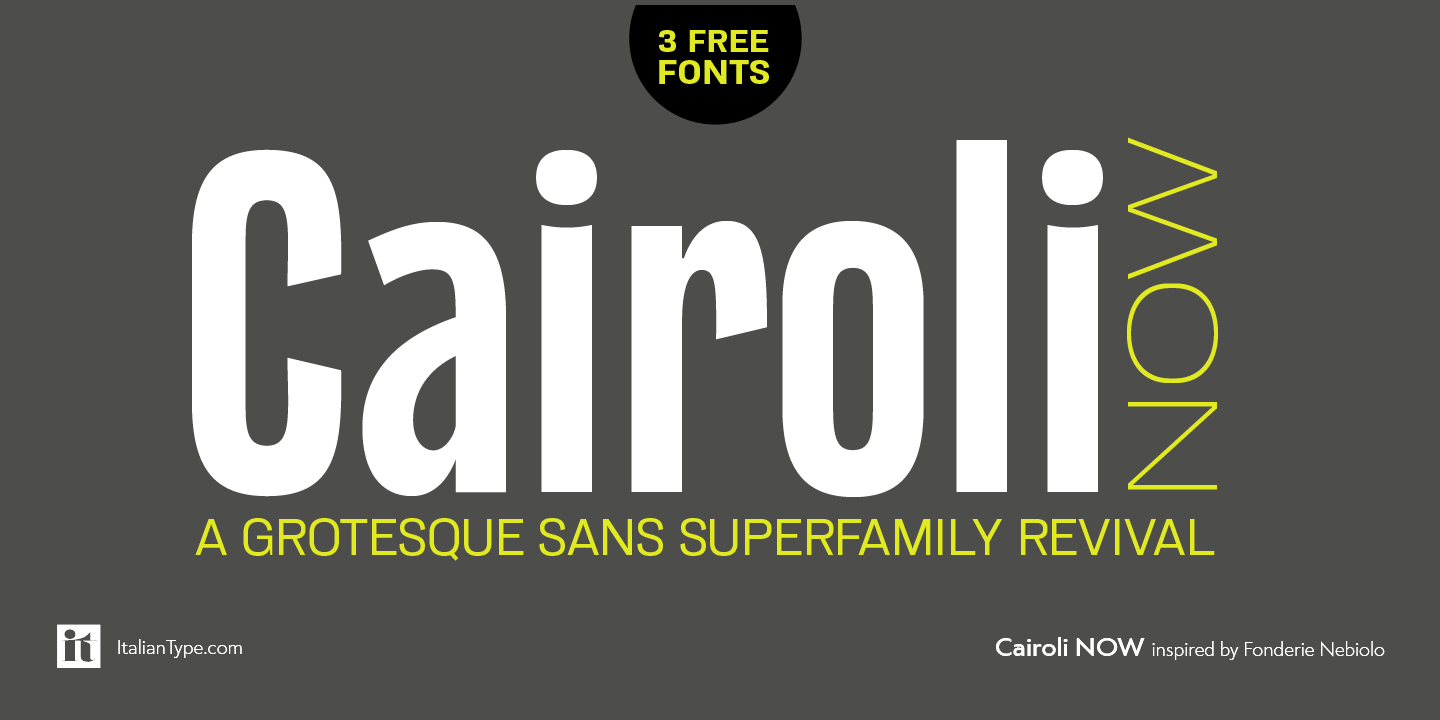
Cairoli Now Font Free Download – A Contemporary Geometric Sans for Modern Branding
Looking for a font that blends Swiss precision with modern versatility? Cairoli Now Font Free Download offers a clean, geometric sans-serif design perfect for corporate identities, web interfaces, app design, and minimalist branding projects. Its balanced proportions and functional aesthetics make it ideal for both display and text applications.
Why Designers Choose Cairoli Now Font
Cairoli Now Font Free Download delivers professional-grade typography with:
Precision-crafted geometric letterforms
Multiple weights from Thin to Black for visual hierarchy
Excellent legibility in digital and print environments
Extended language support for global projects
Cairoli Now Font Free Download – Swiss-Inspired Functionality
Elevate your contemporary projects with this versatile typeface for:
Tech company branding & startup identities
Mobile app interfaces & web design
Annual reports & corporate communications
Wayfinding systems & environmental graphics
Designer Tip: Pair with generous white space for maximum modernist impact!
(Typography Tip: Use the Medium weight for optimal screen readability!)